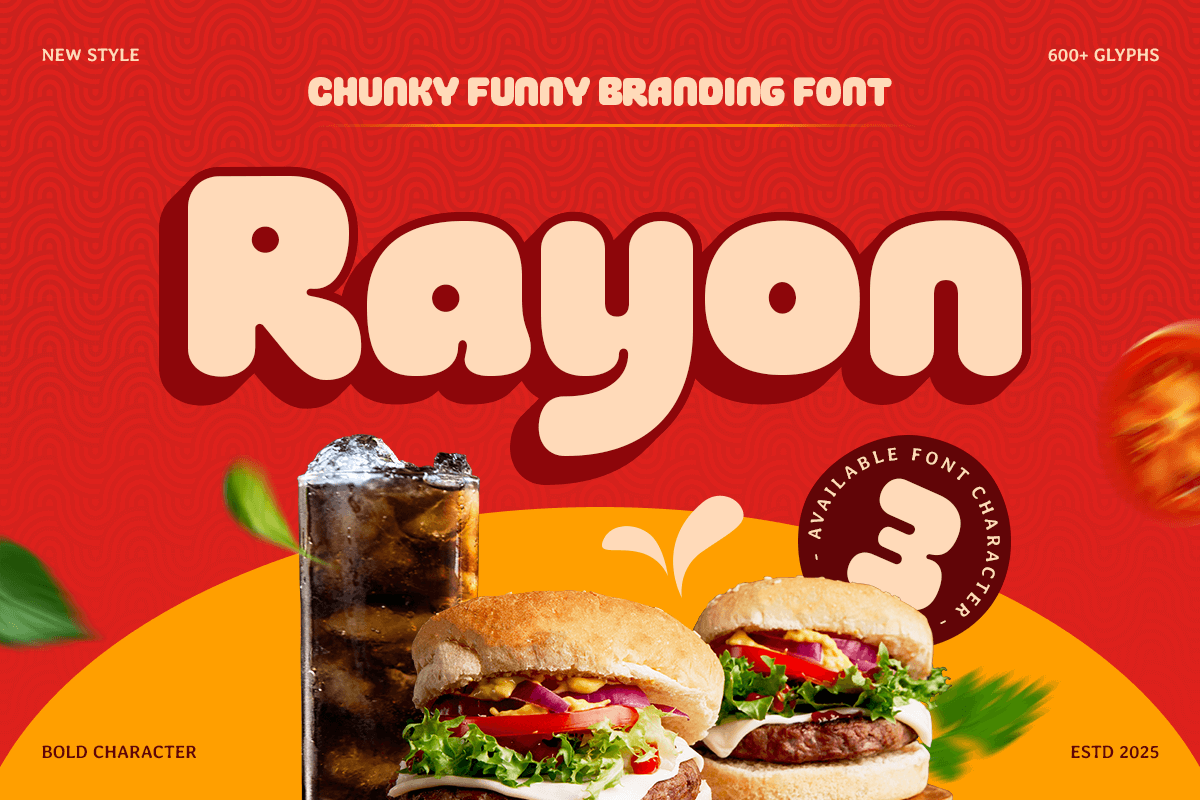
Rayon
-Chunky Funny Food Branding Font
Rayon - Chunky Funny Food Branding Font
Rayon is a bold and bubbly display font designed for brands that want to be playful, loud, and full of flavor. With thick strokes, rounded corners, and a fun-loving personality, it’s perfect for snack packaging, food trucks, candy brands, restaurant menus, and any project that calls for extra delight and appetite appeal.
Its friendly and expressive letterforms make Rayon especially effective for children’s brands, food campaigns, and bold logo design. Whether printed on wrappers or splashed across a billboard, Rayon serves up big smiles and bold attention. Rayon adds a bite of boldness to your designs—fun, chunky, and crafted to be remembered.
Rayon Chunky Funny Food Branding Font Features:
• Bold and Playful Display Style
• Ready with 3 Styles: Regular, Outline, Extrude
• Great for Food Brands, Kids Products, Menus & Packaging
• Punctuation, Numbers, and Symbols